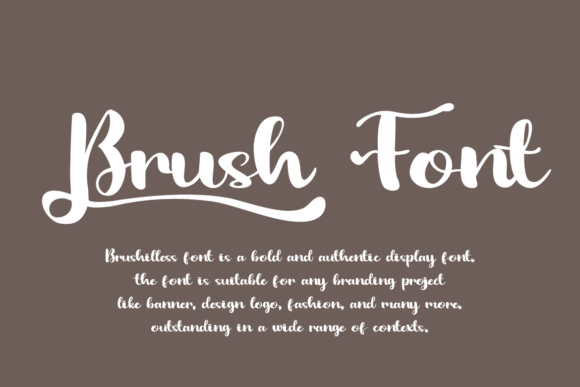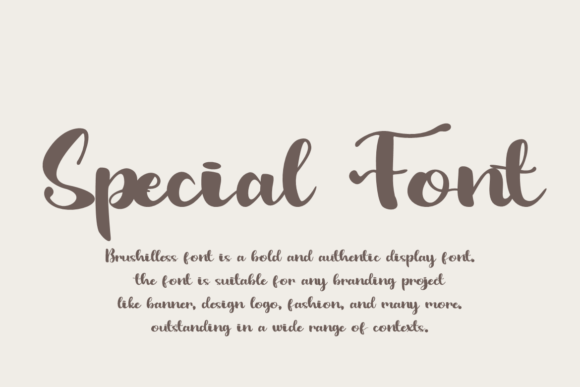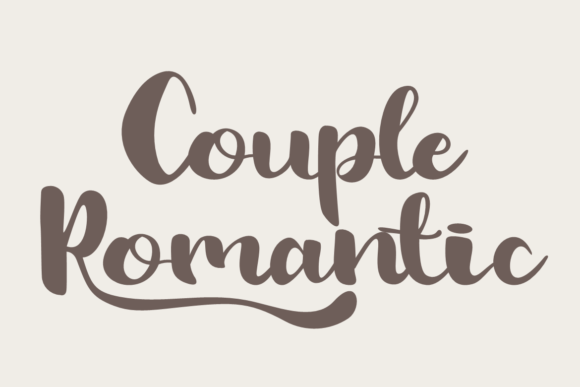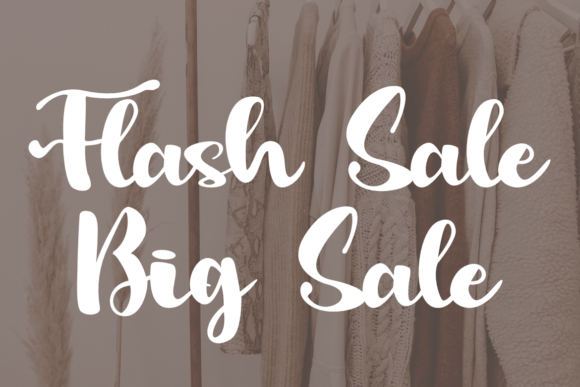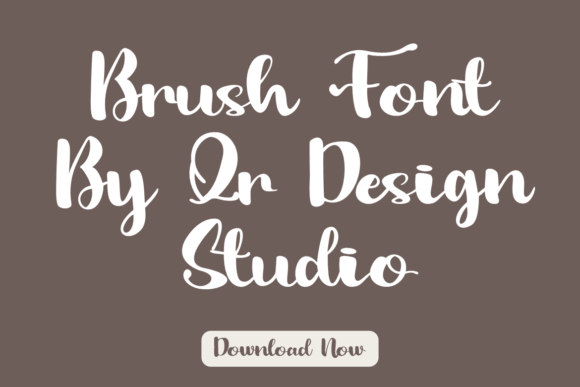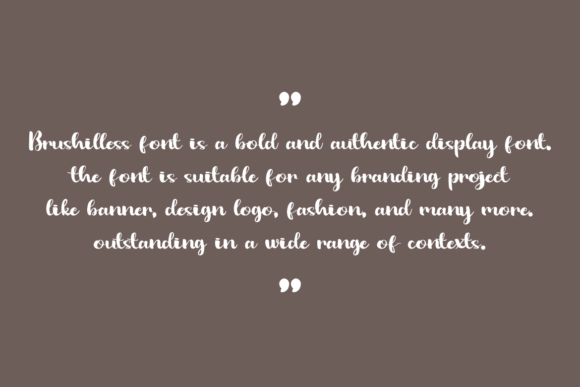
Introducing Brushilless Font: Elevate Your Creations with Elegance and Sophistication
Are you a designer, crafty enthusiast, or entrepreneur looking for a font that can add a touch of elegance and sophistication to your creations? Look no further than Brushilless Font, a bold and exquisite handwritten font that’s sure to take your projects to the next level. With its stylish, graceful, and flowing lines, Brushilless Font is the perfect choice for anyone seeking to add a dash of natural beauty to their work.
What Makes Brushilless Font So Special?
Brushilless Font is a unique and versatile typeface that’s designed to bring a sense of refinement and poise to any project. Its bold and flowing lines are carefully crafted to create a sense of movement and fluidity, making it perfect for use in a wide range of applications, from branding and advertising to packaging and digital media.
One of the standout features of Brushilless Font is its exquisite handwriting style. Each letter is carefully crafted to showcase a sense of elegance and sophistication, making it perfect for use in high-end designs, luxury brands, and creative projects that demand attention to detail.
Key Benefits of Using Brushilless Font
So why choose Brushilless Font for your next project? Here are just a few key benefits to consider:
- Elegant and sophisticated: Brushilless Font is designed to add a touch of elegance and sophistication to any project, making it perfect for high-end designs and luxury brands.
- Versatile: With its bold and flowing lines, Brushilless Font can be used in a wide range of applications, from digital media to packaging and print materials.
- Easy to read: Despite its elegant and flowing style, Brushilless Font is surprisingly easy to read, making it perfect for use in body text and other applications where readability is key.
- Unique: Brushilless Font is a one-of-a-kind typeface that’s sure to help your project stand out from the crowd.
How to Use Brushilless Font in Your Projects
Using Brushilless Font in your projects is easy. Here are a few tips to get you started:
- Pair it with a simple background: Brushilless Font is designed to be the star of the show, so pair it with a simple background to really make it shine.
- Use it for headlines: Brushilless Font is perfect for use in headlines and titles, where its bold and flowing lines can really make an impact.
- Experiment with colors: Brushilless Font looks great in a wide range of colors, so don’t be afraid to experiment and find the perfect hue for your project.
Who Can Benefit from Using Brushilless Font?
Brushilless Font is perfect for anyone looking to add a touch of elegance and sophistication to their projects. Here are just a few examples of designers, crafters, and entrepreneurs who can benefit from using Brushilless Font:
- Graphic designers: Brushilless Font is perfect for use in branding, advertising, and other graphic design applications.
- Crafty enthusiasts: Brushilless Font is a great choice for crafty enthusiasts looking to add a touch of elegance to their DIY projects.
- Entrepreneurs: Brushilless Font is perfect for entrepreneurs looking to create a professional and sophisticated brand image.
In conclusion, Brushilless Font is a bold and exquisite handwritten font that’s sure to elevate the look of any project. With its stylish, graceful, and flowing lines, Brushilless Font is the perfect choice for designers, crafty enthusiasts, and entrepreneurs looking to add a touch of elegance and sophistication to their creations. So why wait? Download Brushilless Font today and start creating beautiful, professional-looking projects that will leave a lasting impression.